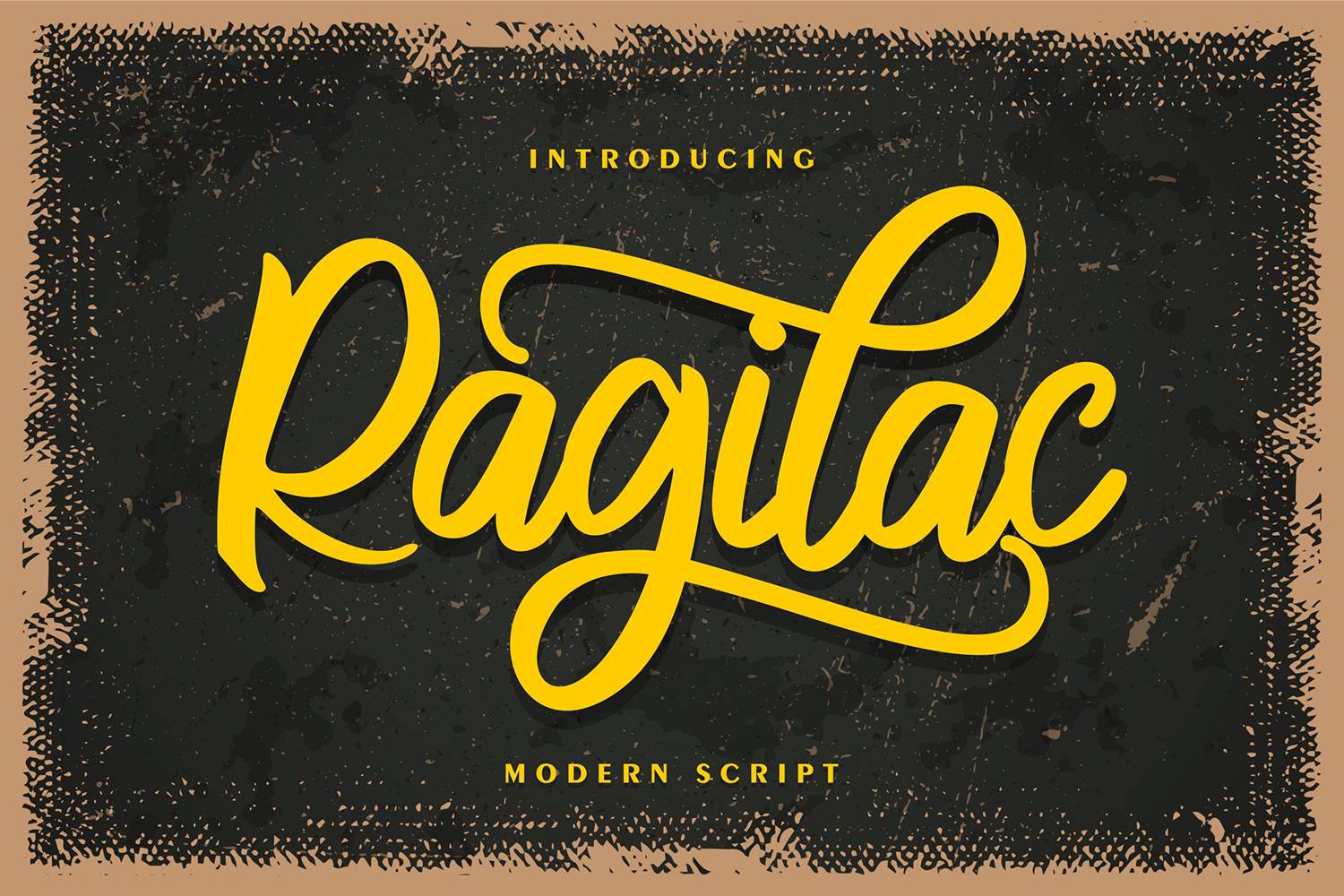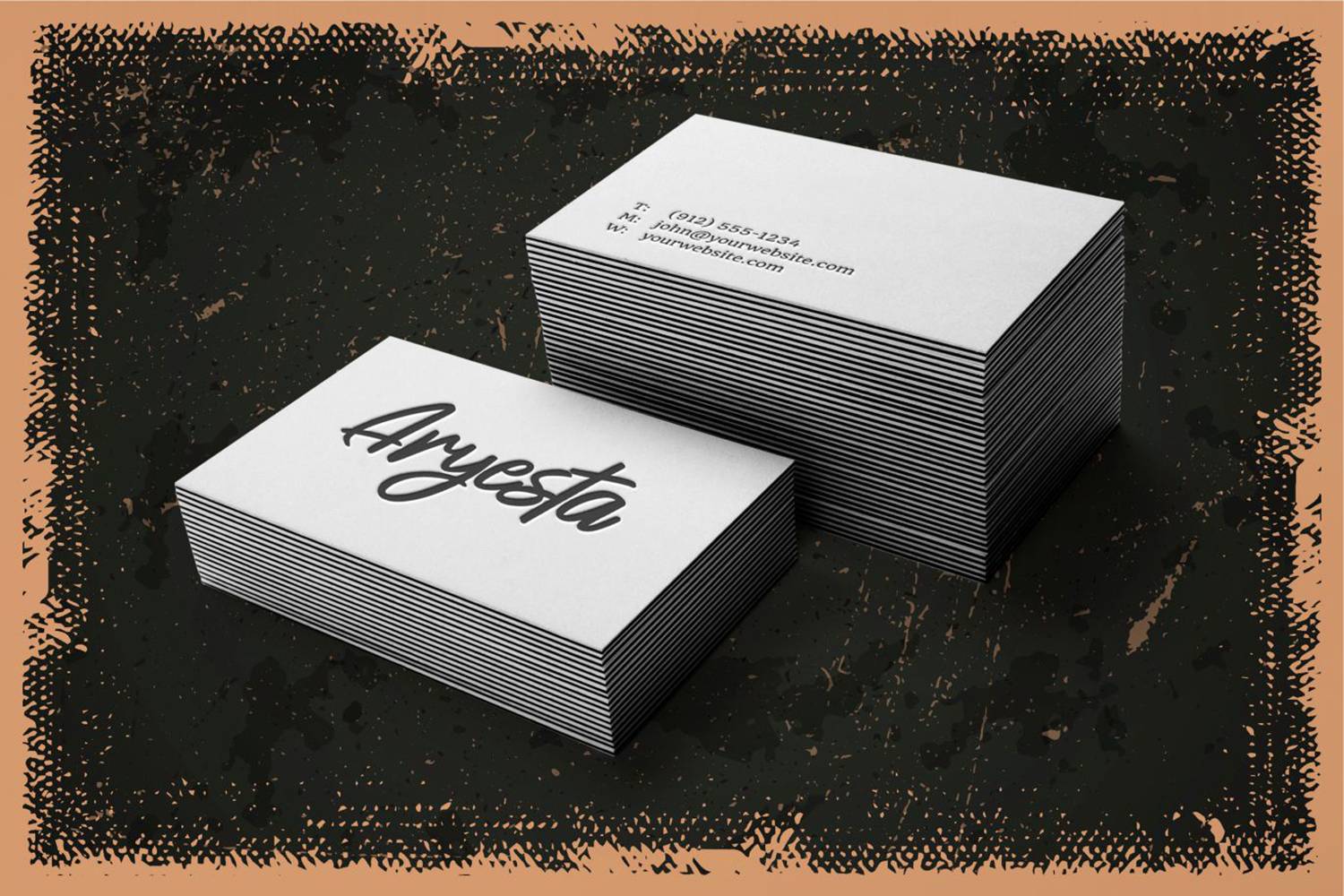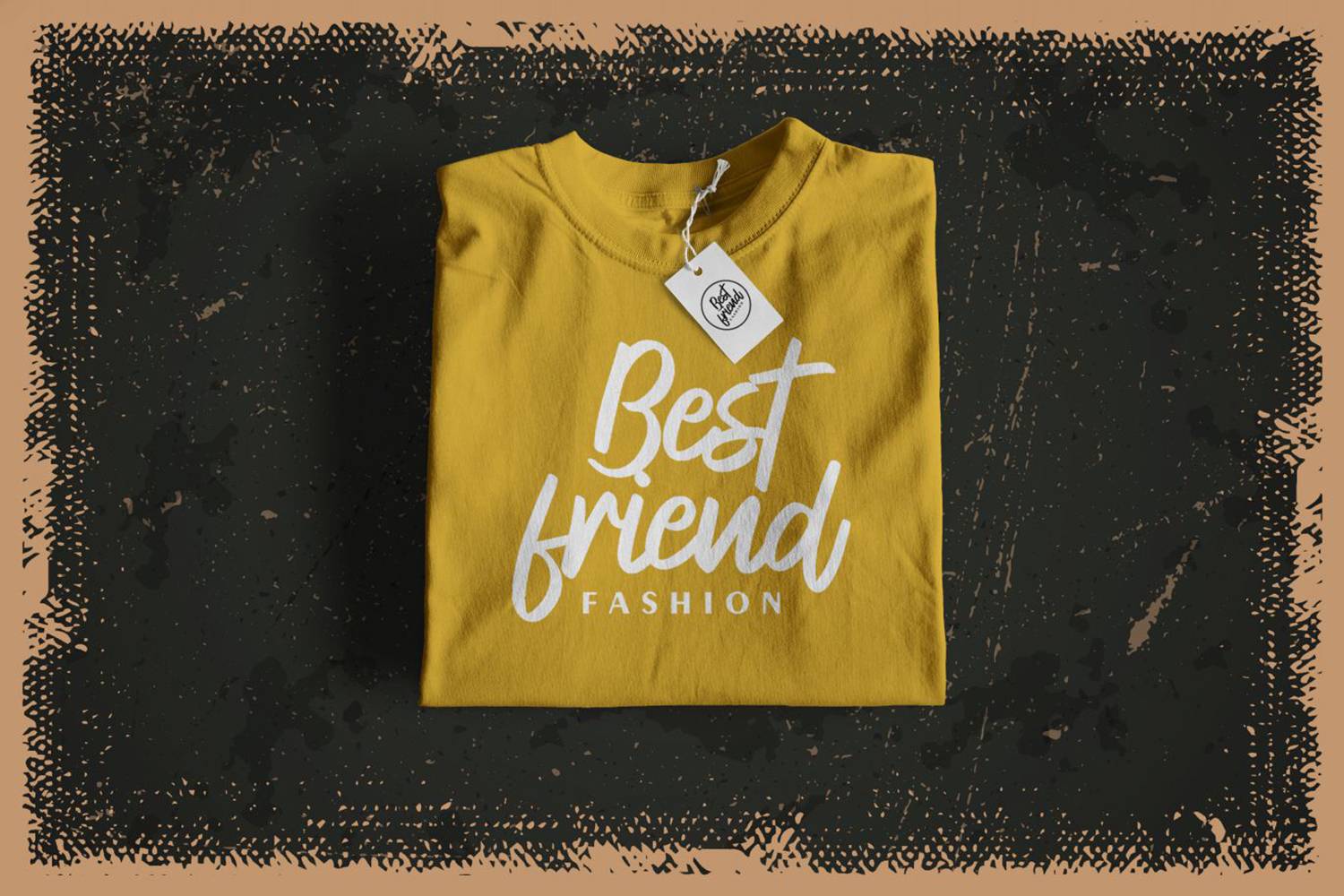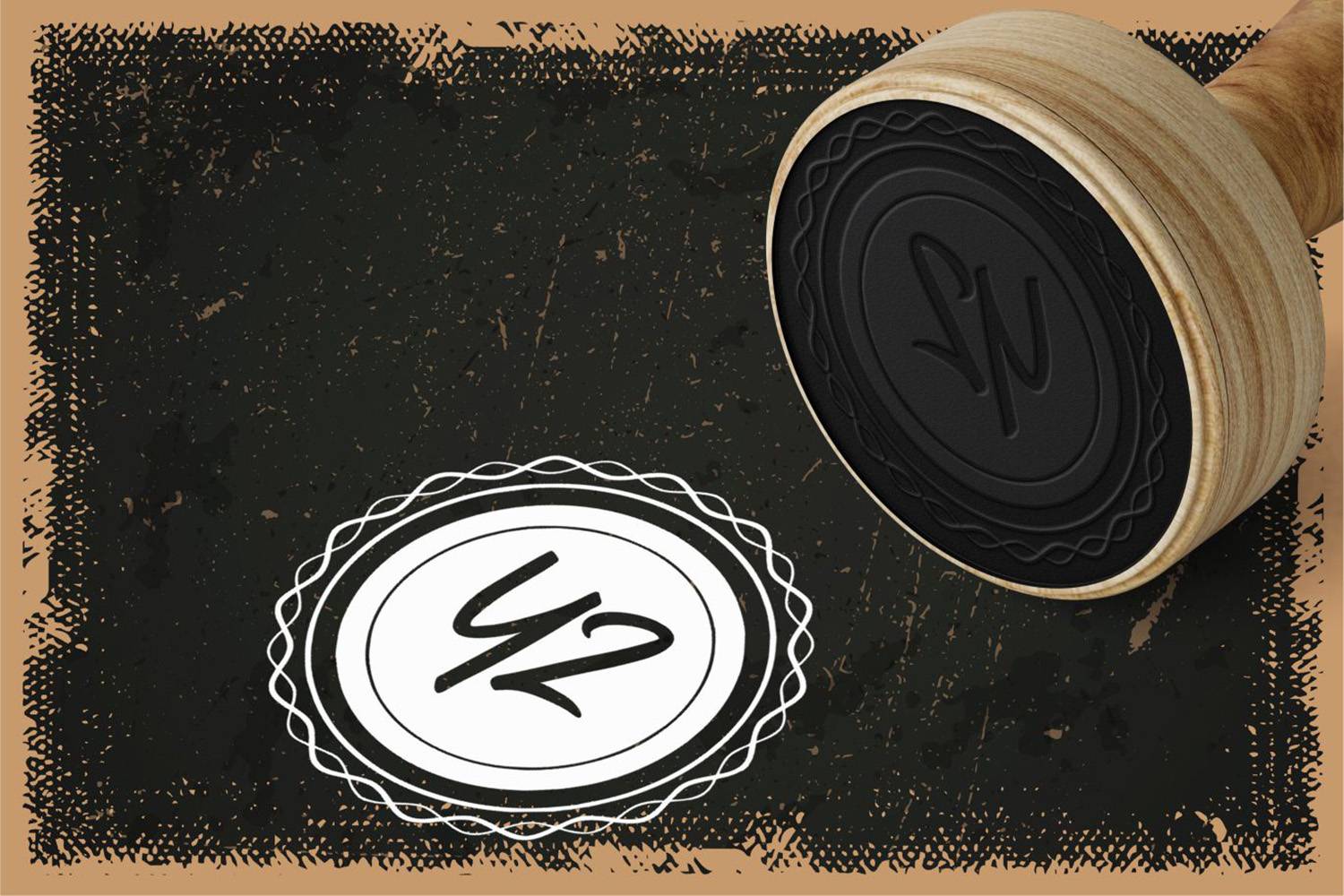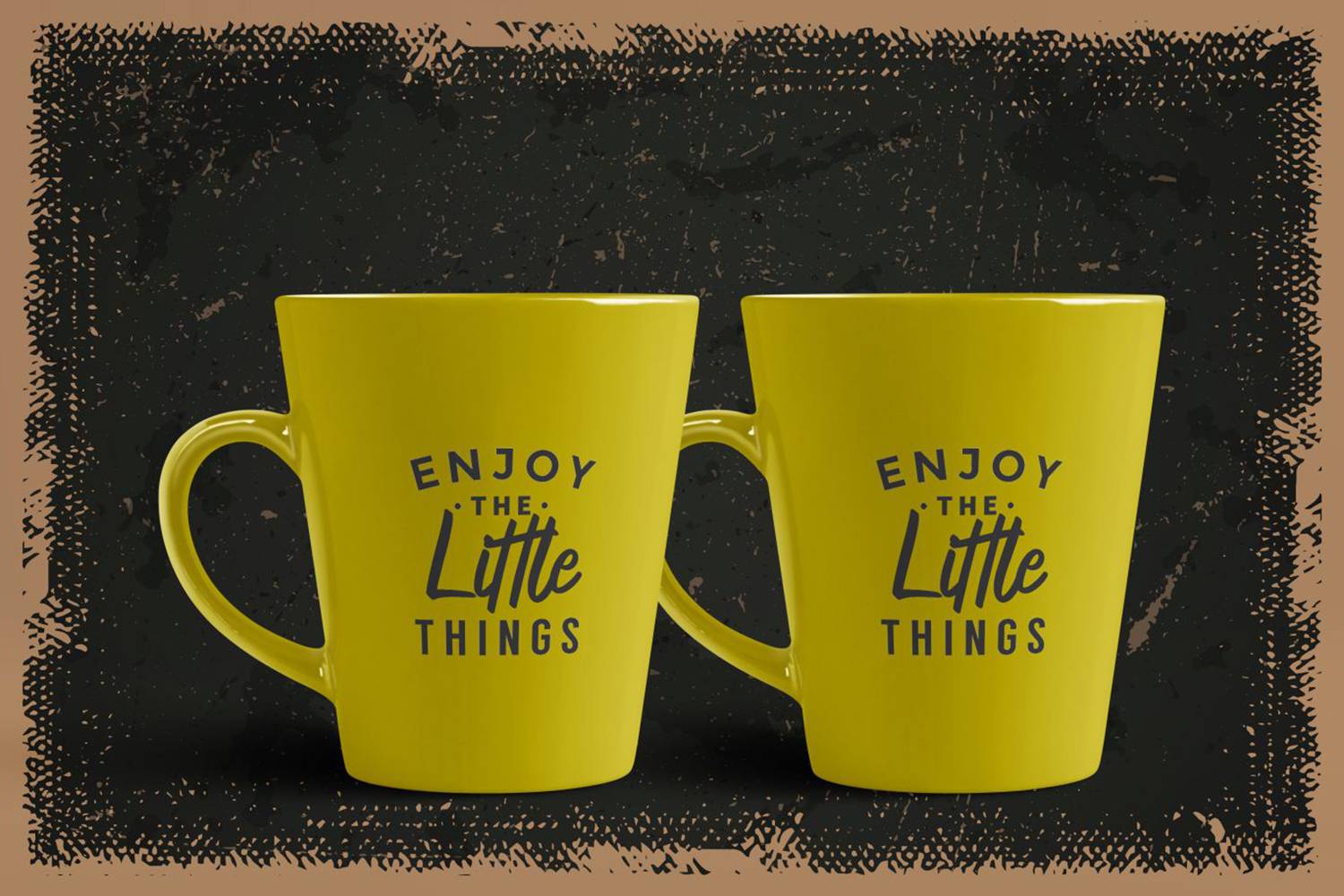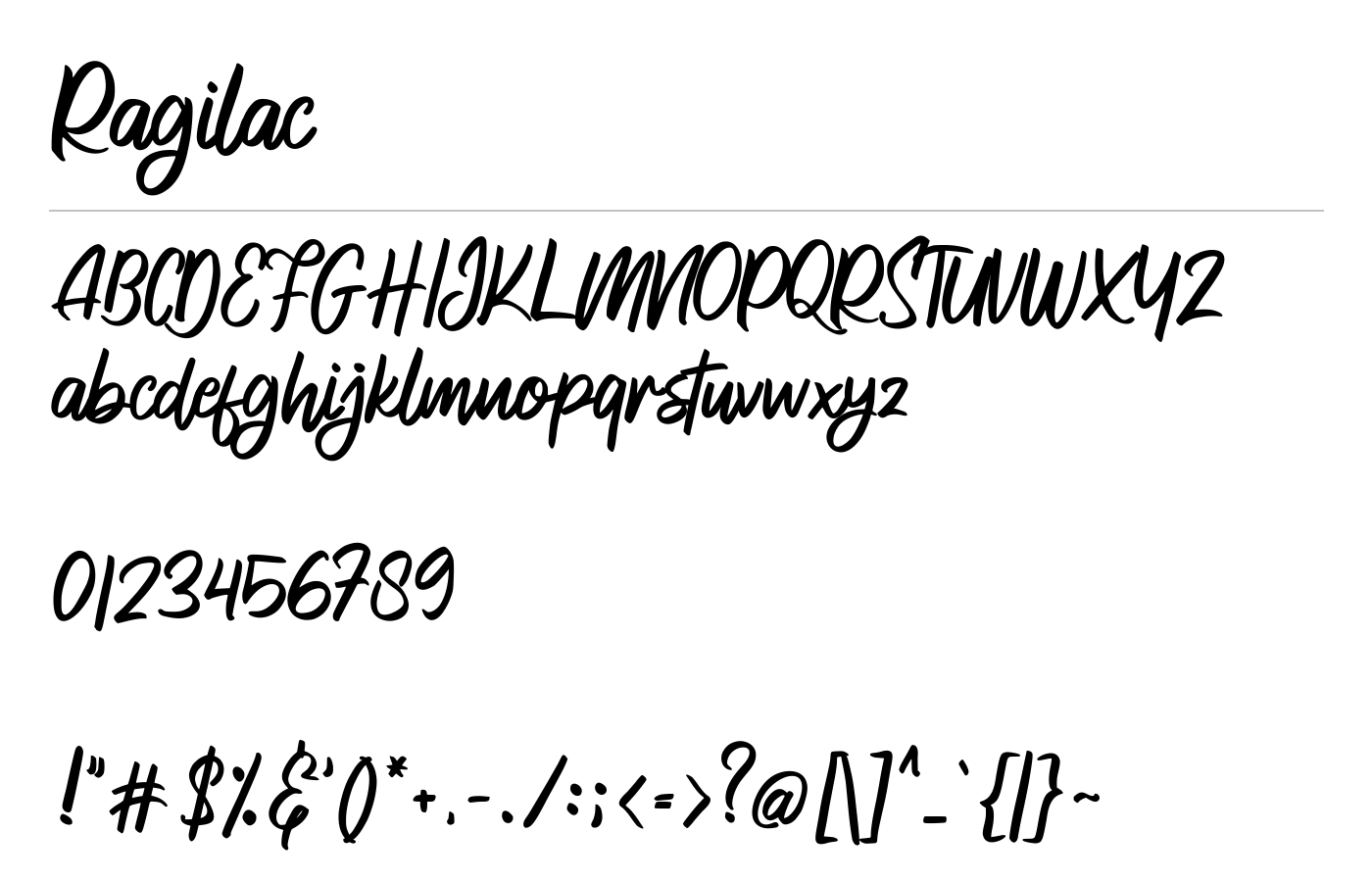
Ragilac is a lively and expressive script font with a casual, hand-drawn feel that brings personality and warmth to any design. Its smooth, slightly slanted strokes and playful letterforms make it ideal for branding, invitations, and creative projects looking to convey friendliness and approachability. This font works particularly well in headlines and logos where a personal, informal touch is desired.
Ragilac Font
About Ragilac Font
| Font family | Ragilac Font |
| Designer | Fannan Studio |